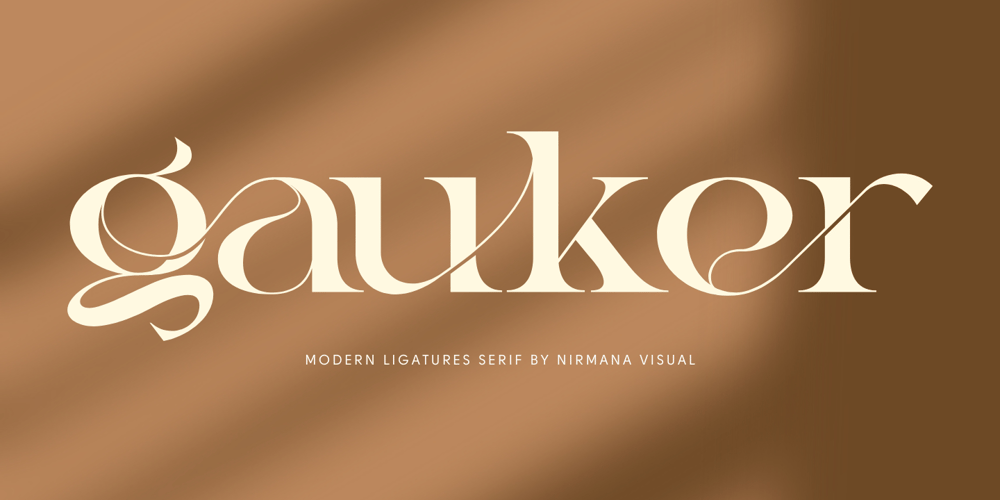
Gauker Font Family was designed by Sigit Dwipa and published by Nirmana Visual. Gauker contains 1 styles and family package options. Specifically crafted for those who value sophisticated design, Gauker brings a unique touch to your text through its exquisite ligatures.Gauker stands out with its beautifully crafted ligatures, seamlessly connecting characters to create a fluid and elegant look. Each ligature has been meticulously designed to enhance readability and aesthetic appeal.